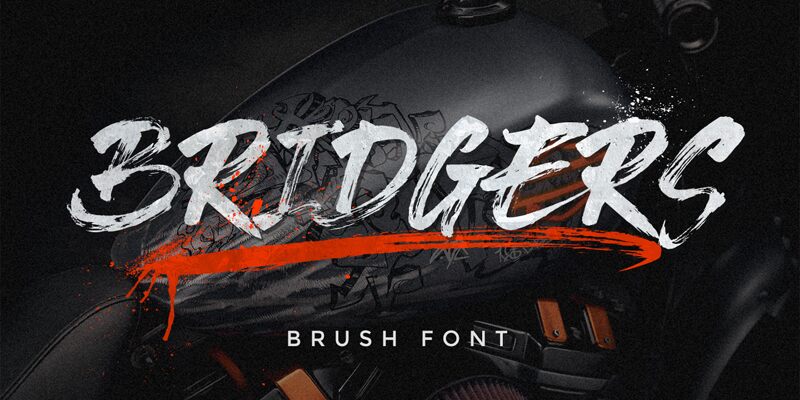
Bridgers Brush
Bridgers Brush, crafted by Fargun Studio, embodies the lively spirit of brush-stroke artistry. Its bold strokes exude vibrancy and character, creating an energetic visual impact that captivates viewers. The sweeping curves and dynamic forms convey a sense of movement, making it a perfect choice for projects requiring attention and flair.
This font's expressive style lends itself beautifully to various applications-from eye-catching logos to engaging posters and dynamic social media graphics. Whether used for branding or creative invitations, Bridgers Brush stands out with its unique personality, transforming text into an artful statement. Its compelling aesthetic makes it an excellent fit for both modern and playful design contexts.